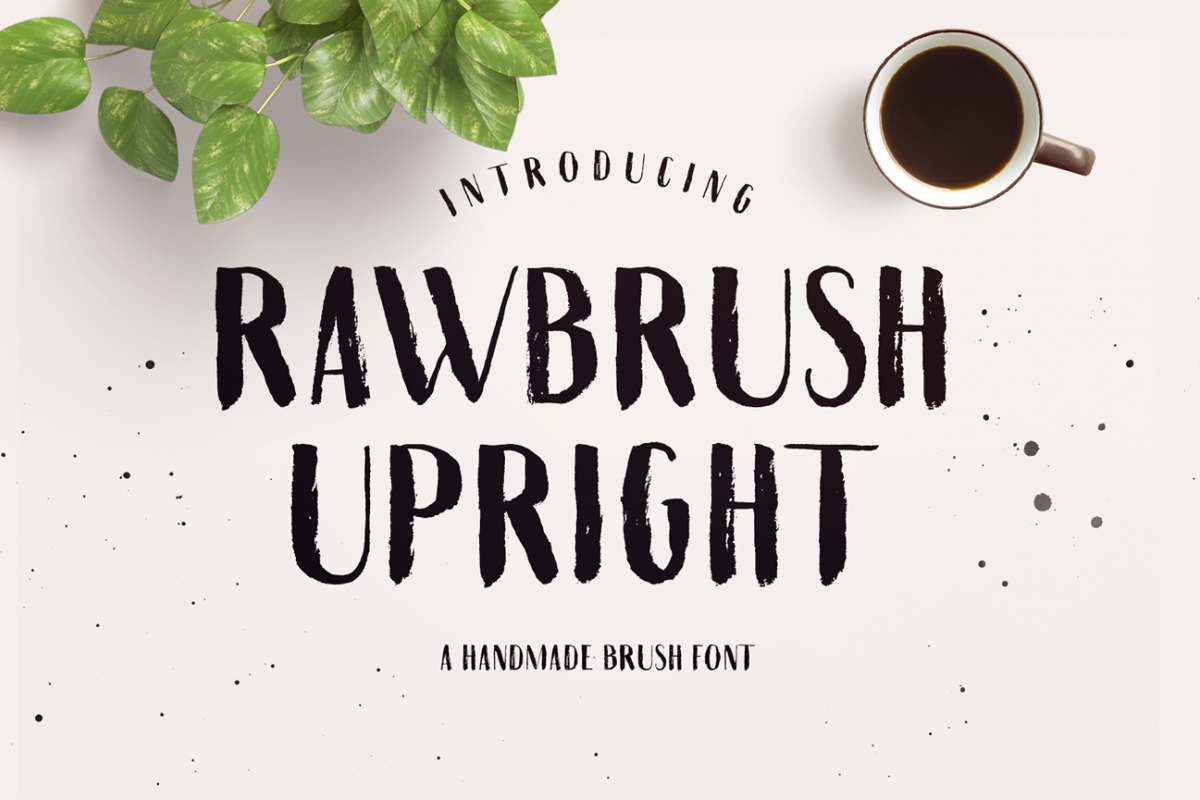
Rawbrush Upright | A Handmade Brush Font
Introducing Rawbrush Upright. A condensed dry brush font. Strong and textured, Rawbrush Upright is sure to make a statement. Files included: